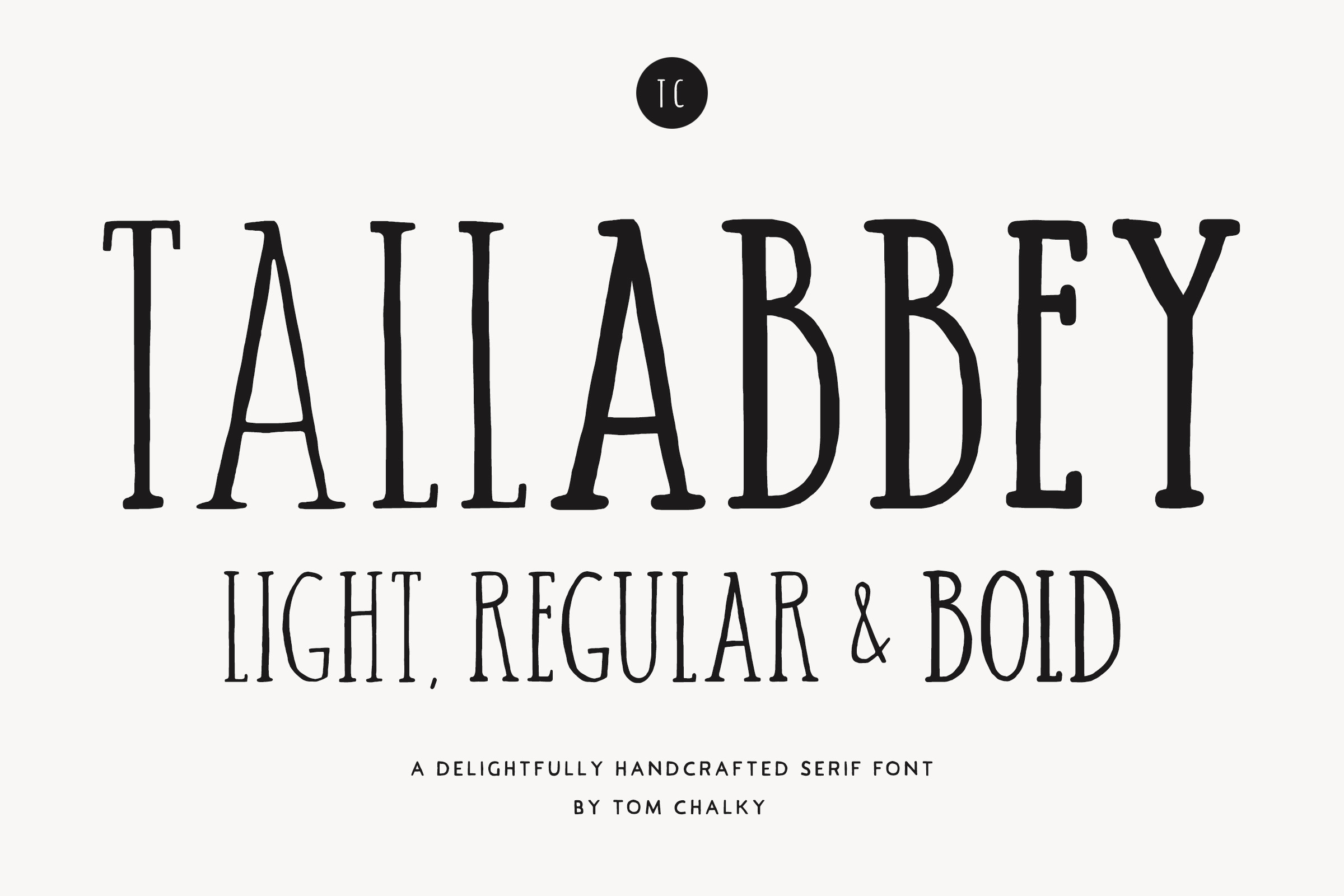
TC Tall Abbey
TC Tall Abbey is a display slab font family. This typeface has three styles and was published by Tom Chalky.
Proudly introducing ‘TC Tall Abbey Serif’ - A quirky, tall, authentic, and warm font family full of perfect imperfections and personality. Oozing all the joys of handwritten typography, Tall Abbey effortlessly infuses a human touch into our digital world and your design projects.
An entirely uppercase typeface where the lowercase glyphs offer slight variations of its counterpart, improving the handwritten effect.